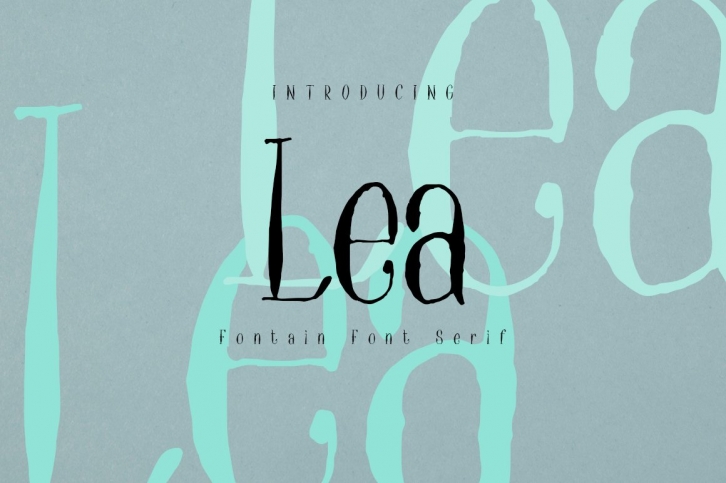
Lea is a trendy and unique font with an authentic style. It was designed by Mcjer.Studio and it's a great choice for creative people who need such a font. It was released on April 29, 2020 and the file size is 2.44 MB. Lea will add an organic vibe to any design idea!